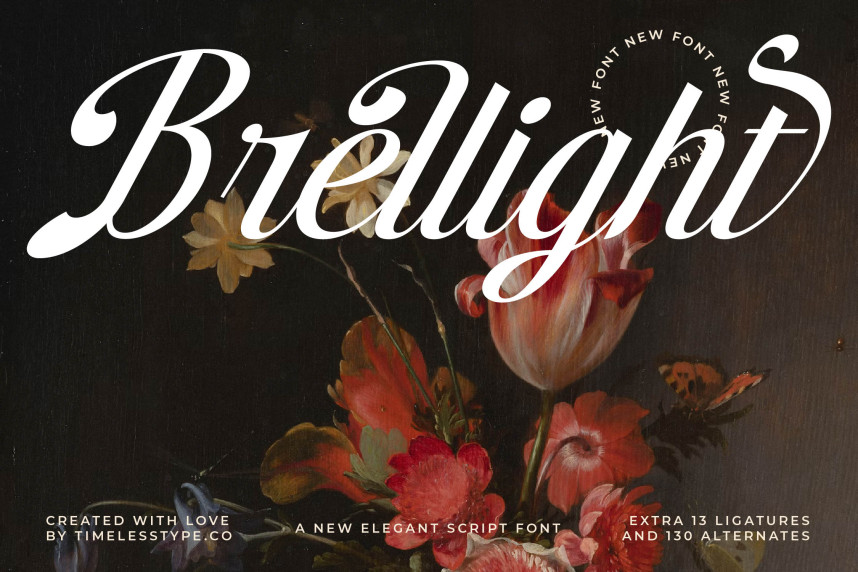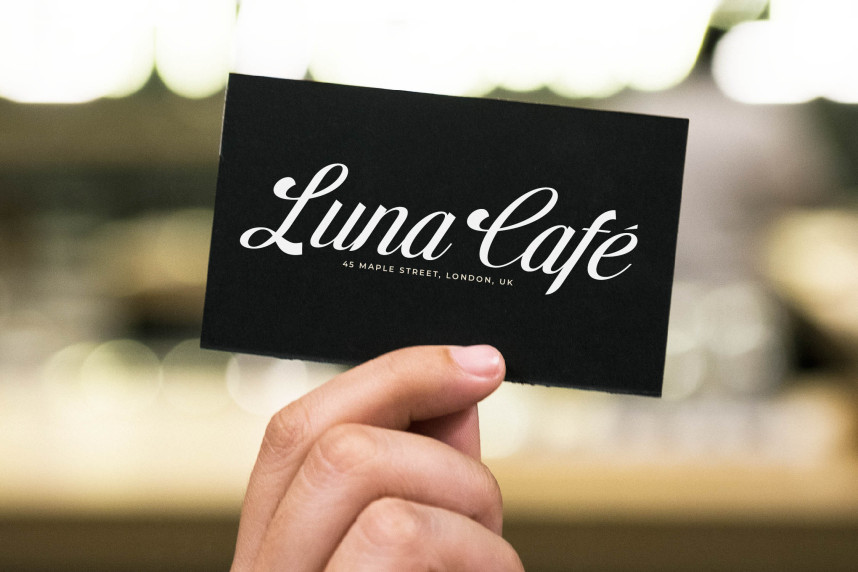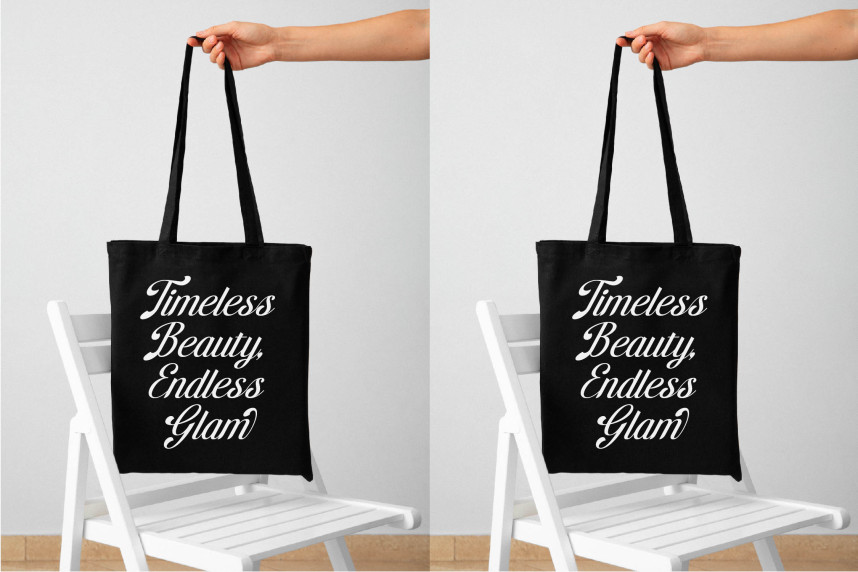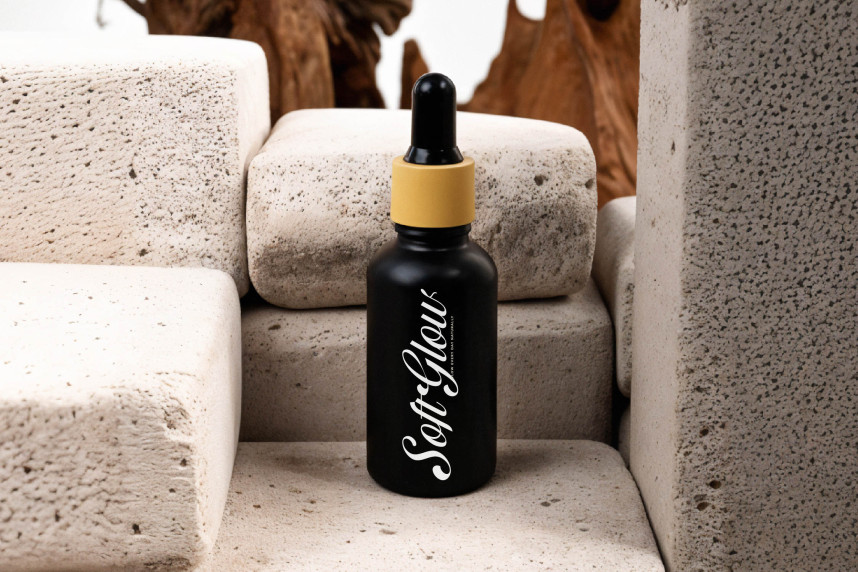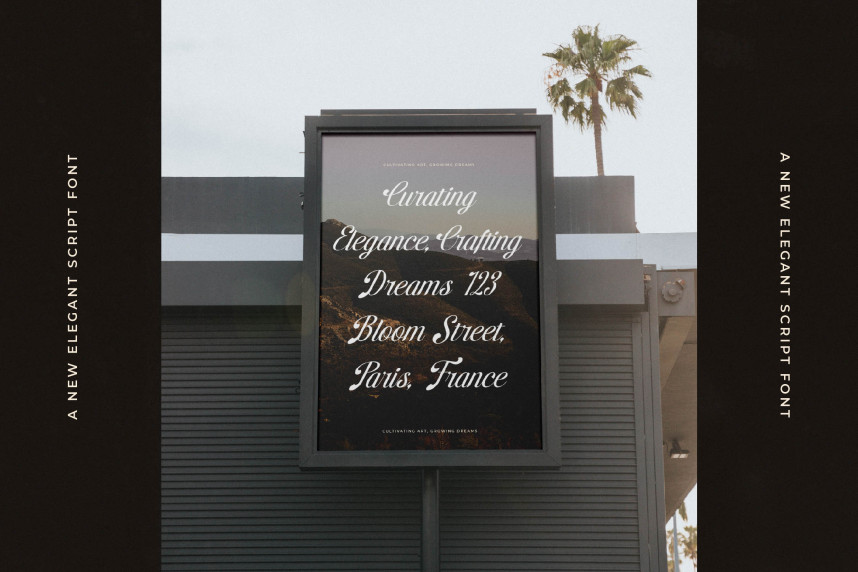
Brellight Script Font – New Elegant Script Font Script, a meticulously crafted typeface designed to elevate any visual project. This exquisite script font captivates with its fluid, high-contrast strokes and elegant calligraphic essence, embodying a perfect blend of classic charm and contemporary flair. Its refined curves and graceful connections promise to add a touch of luxury and distinction to your designs.
Experience boundless creative freedom through the rich feature set of Font Brelllight – New Elegant Script Font Script. Boasting an impressive collection of 13 ligatures and 130 alternates, this font offers unparalleled customization, allowing designers to sculpt truly unique and personalized typography. The intricate details ensure a visually captivating and harmonious presentation, making it an indispensable tool for a bespoke aesthetic.
Expand your design reach globally with the exceptional versatility of Font Brelllight – New Elegant Script Font Script. With its extensive multilingual support, Font Brelllight – New Elegant Script Font Script adapts seamlessly across global markets, making it incredibly versatile for international projects. This comprehensive language coverage ensures your brand’s voice resonates authentically with diverse audiences, establishing it as a global asset.
Transform your brand identity into an icon of elegance and prestige. Font Brelllight – New Elegant Script Font Script is perfect for luxury branding, high-end packaging, editorial design, invitations, and any project demanding an exclusive, handcrafted feel. Its striking presence guarantees a memorable impact, establishing an aura of sophistication and timeless beauty that distinguishes your work.